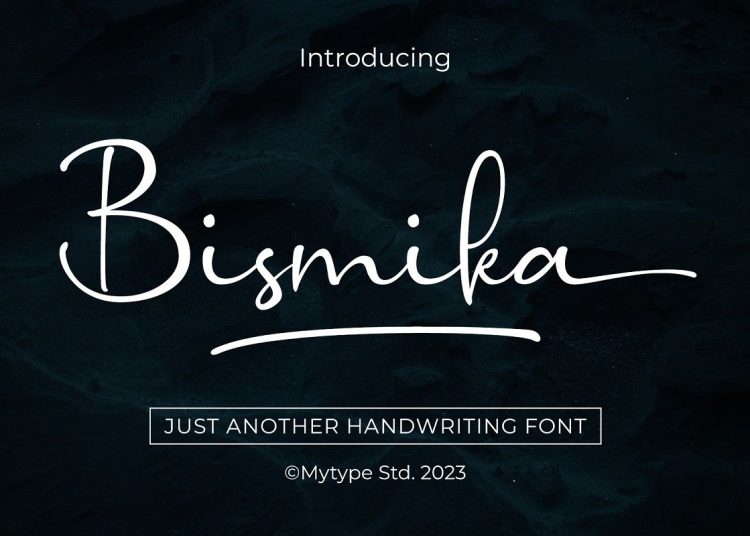
Bismika Font
Enter the realm of elegance and sophistication with the exquisite “Bismika” font, a handwritten masterpiece crafted to evoke the timeless beauty of fine writing. This font exudes an air of refinement, boasting graceful curves, delicate serifs, ornate embellishments, and stylistic flourishes that elevate it to a league of its own. Bismika is not just a typeface; it’s a symphony of artistic expression, perfectly suited for occasions and projects that demand a touch of antique charm.
At the heart of Bismika lies its unparalleled elegance, evident in every stroke and curve. The curvilinear forms of its letters, the subtle serifs, and the intricate detailing all contribute to its allure, making it a captivating choice for wedding invitations, company logos, and any endeavor where sophistication is paramount.
Whether adorning the pages of a wedding card or gracing the branding of a prestigious company, Bismika effortlessly exudes an aura of class and refinement. Its timeless appeal transcends trends, making it a versatile option for designers seeking to infuse their projects with an air of vintage glamour.
In a world where digital fonts abound, Bismika stands out as a beacon of elegance, a testament to the enduring allure of fine writing. Embrace the beauty of antiquity, and let Bismika transform your designs into timeless masterpieces that captivate hearts and minds alike.